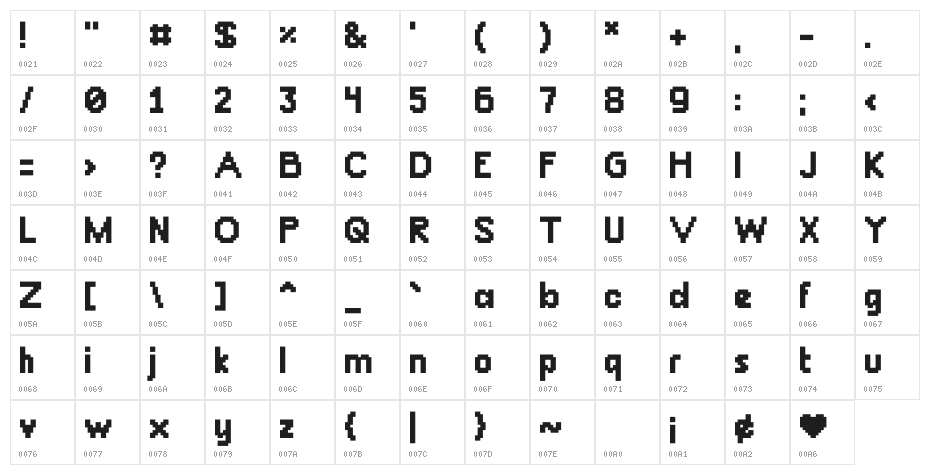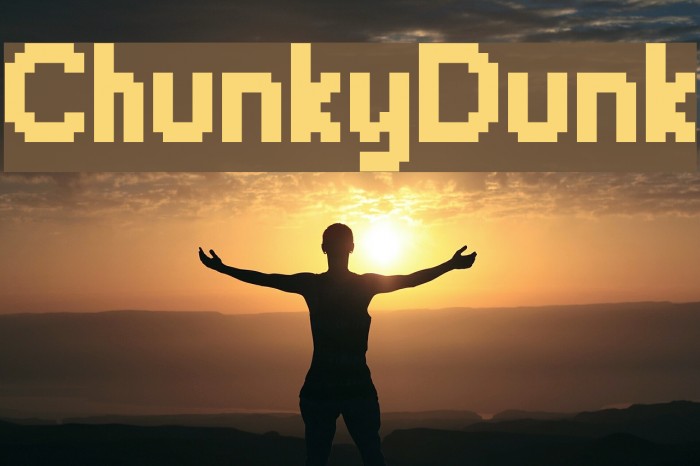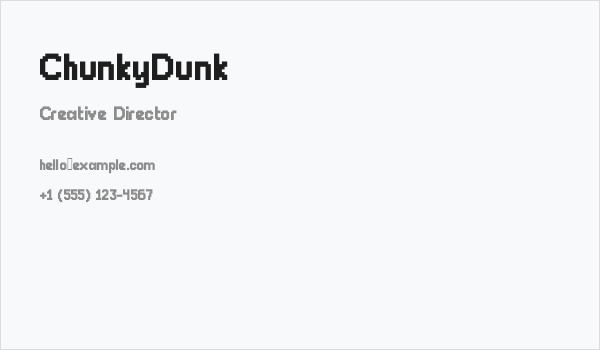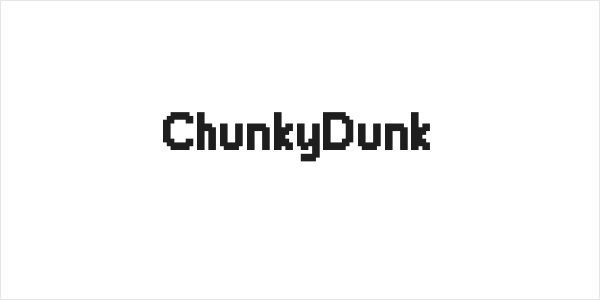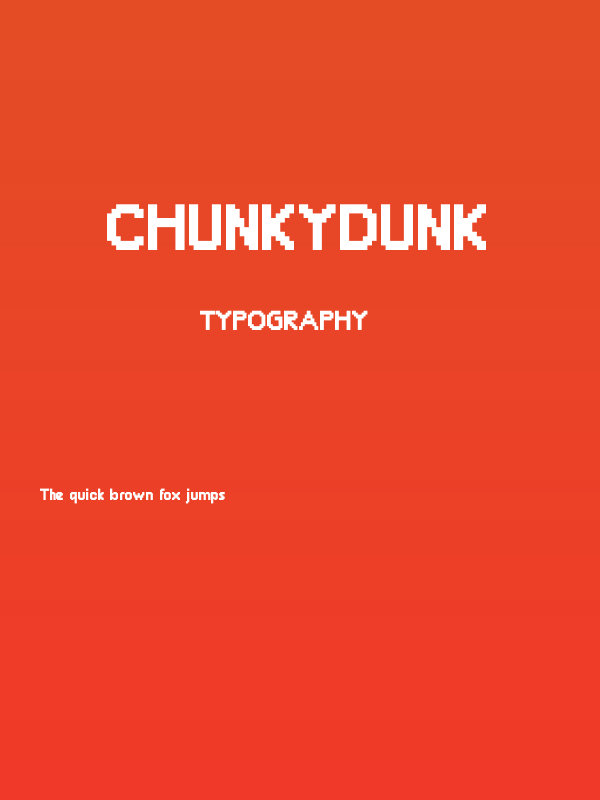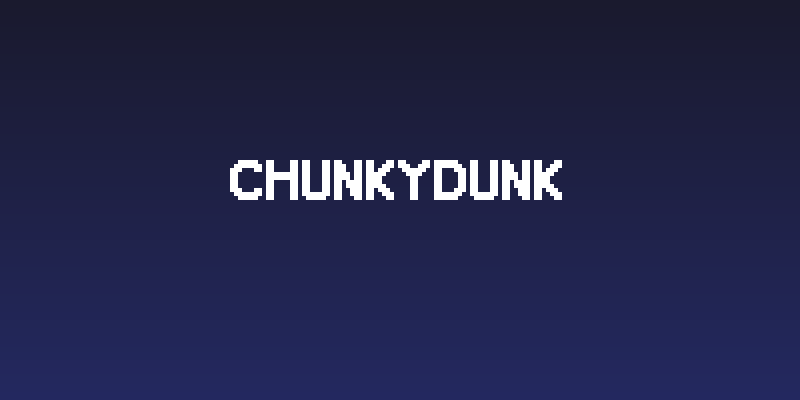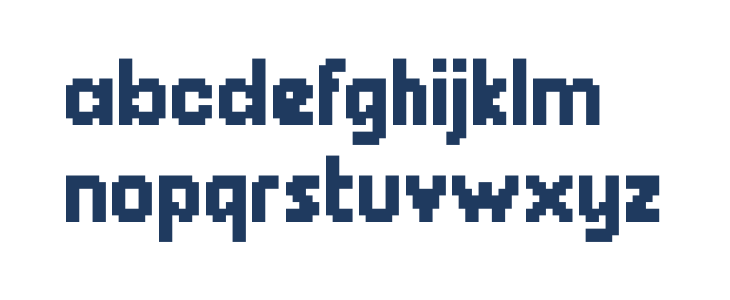
ChunkyDunk Font
ChunkyDunk Description
This font features a bold, pixelated style reminiscent of classic video game graphics. Each character is constructed with a blocky, geometric design, giving it a distinctly retro and digital appearance. The uppercase and lowercase letters maintain a consistent height and width, contributing to a uniform and cohesive look. Numbers and special characters follow the same pixelated pattern, ensuring a harmonious overall aesthetic. The font's simplicity and clarity make it highly legible, even at smaller sizes, while its unique style adds a playful and nostalgic touch.
Overall StyleRetro, Digital
Proposed ProjectsIdeal for video game design, retro-themed posters, digital art projects, and any creative work that requires a nostalgic or playful touch.